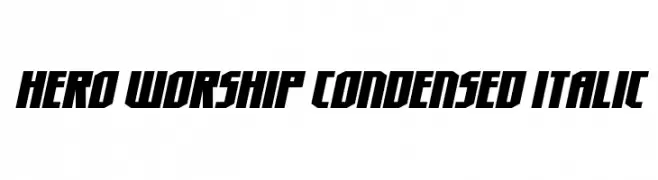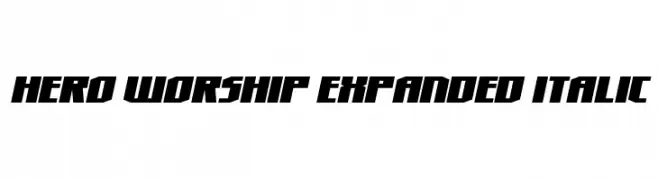
• Hero Worship Title
A bold, geometric font with strong, angular lines and a blocky appearance.
• Hero Worship Condensed Italic
A bold, condensed, and italicized font with a dynamic and modern style.
• Hero Worship Semi-Leftalic
Bold, angular, and geometric font with a strong presence.
• Hero Worship Halftone Italic
A bold, italicized font with a halftone effect, ideal for modern, dynamic designs.
• Hero Worship Expanded Italic
A bold, expanded, and italicized font with a geometric and futuristic style.
• Hero Worship Semi-Italic
Bold, angular, semi-italic font with a dynamic and geometric style.
• Hero Worship Outline
A bold, geometric outline font with strong, angular lines and a modern aesthetic.
• Hero Worship Halftone
A bold, geometric font with a halftone effect, perfect for modern designs.
• Hero Worship Gradient Italic
A bold, italicized font with a gradient effect and dynamic, energetic style.
• Hero Worship Super-Italic
A bold, italic, geometric font with a dynamic and futuristic style.